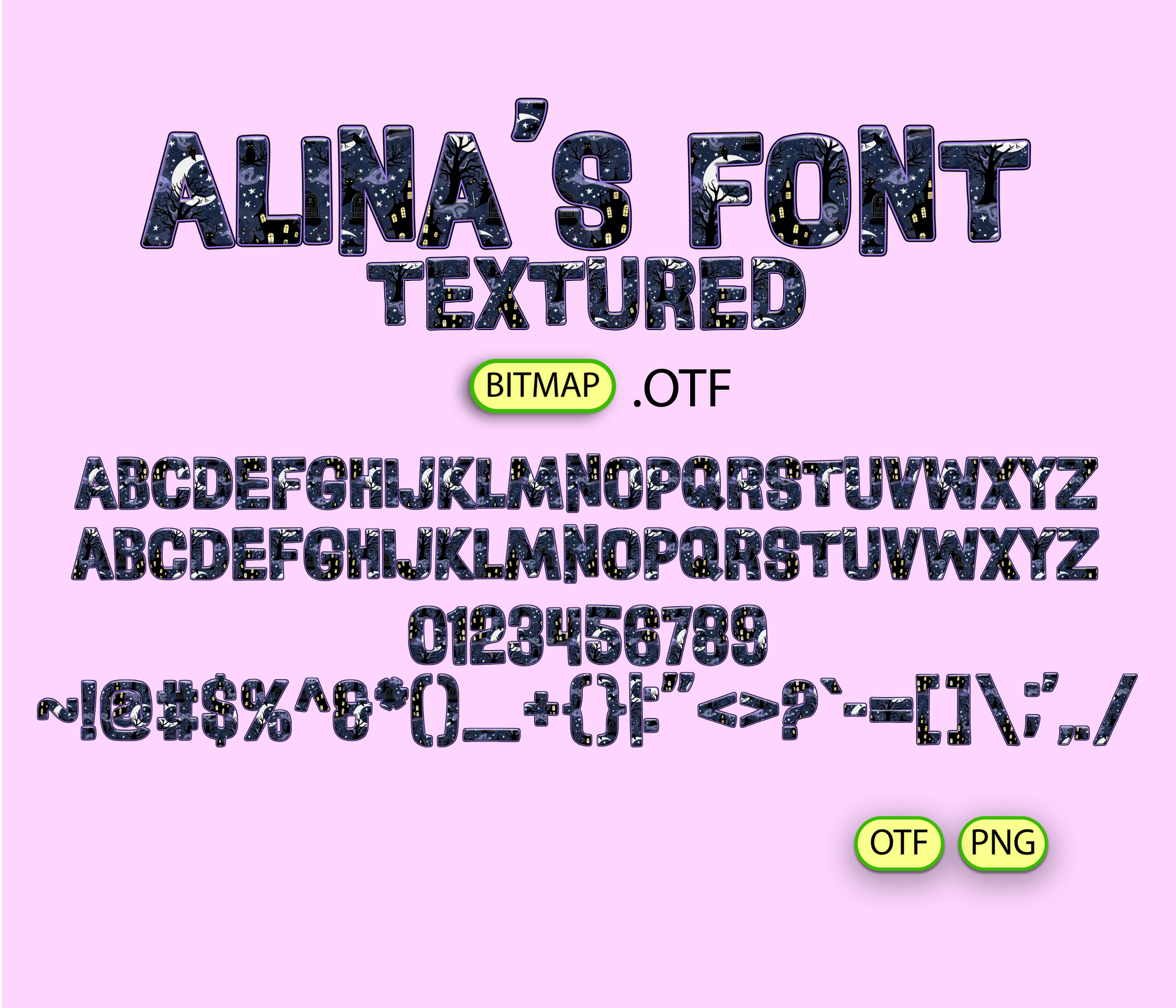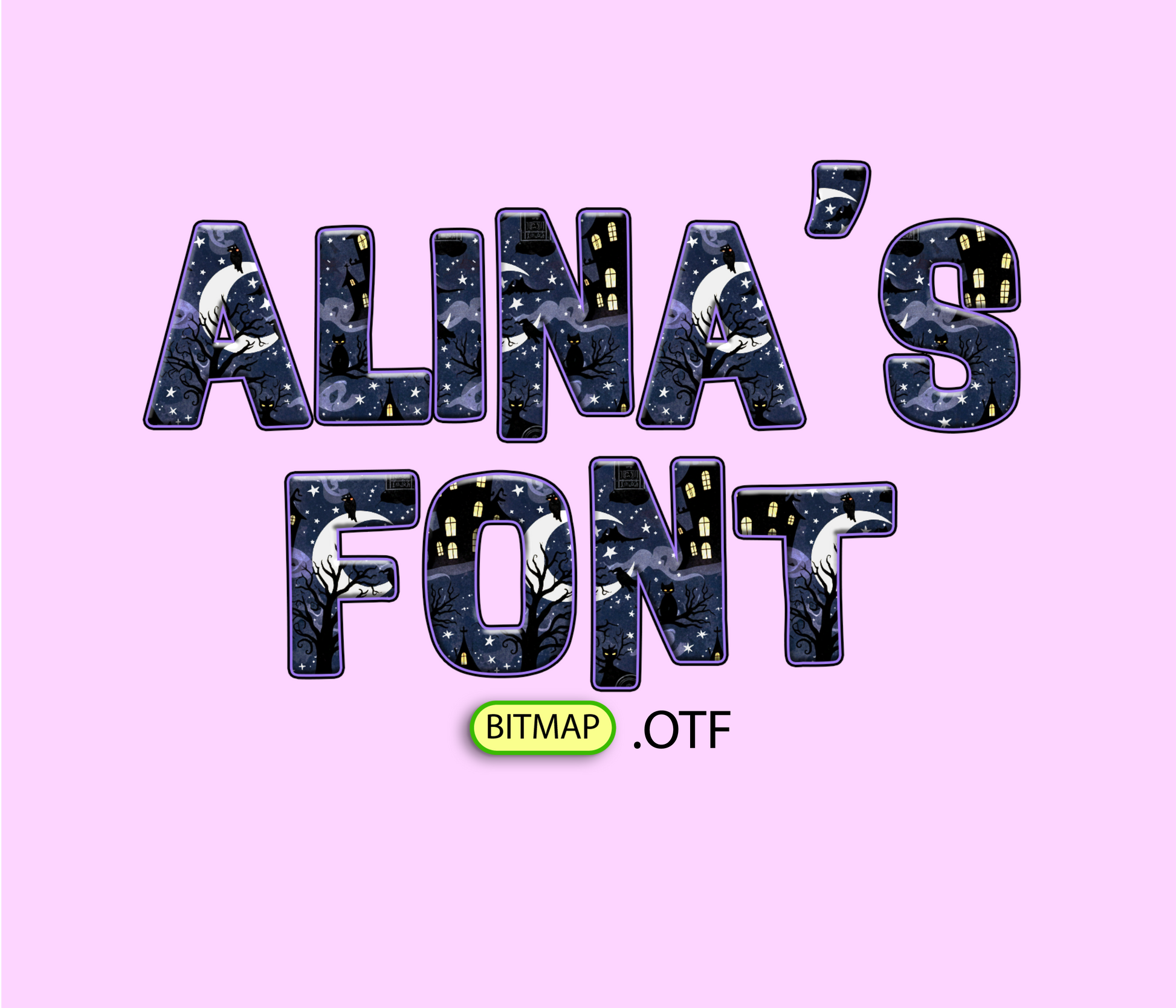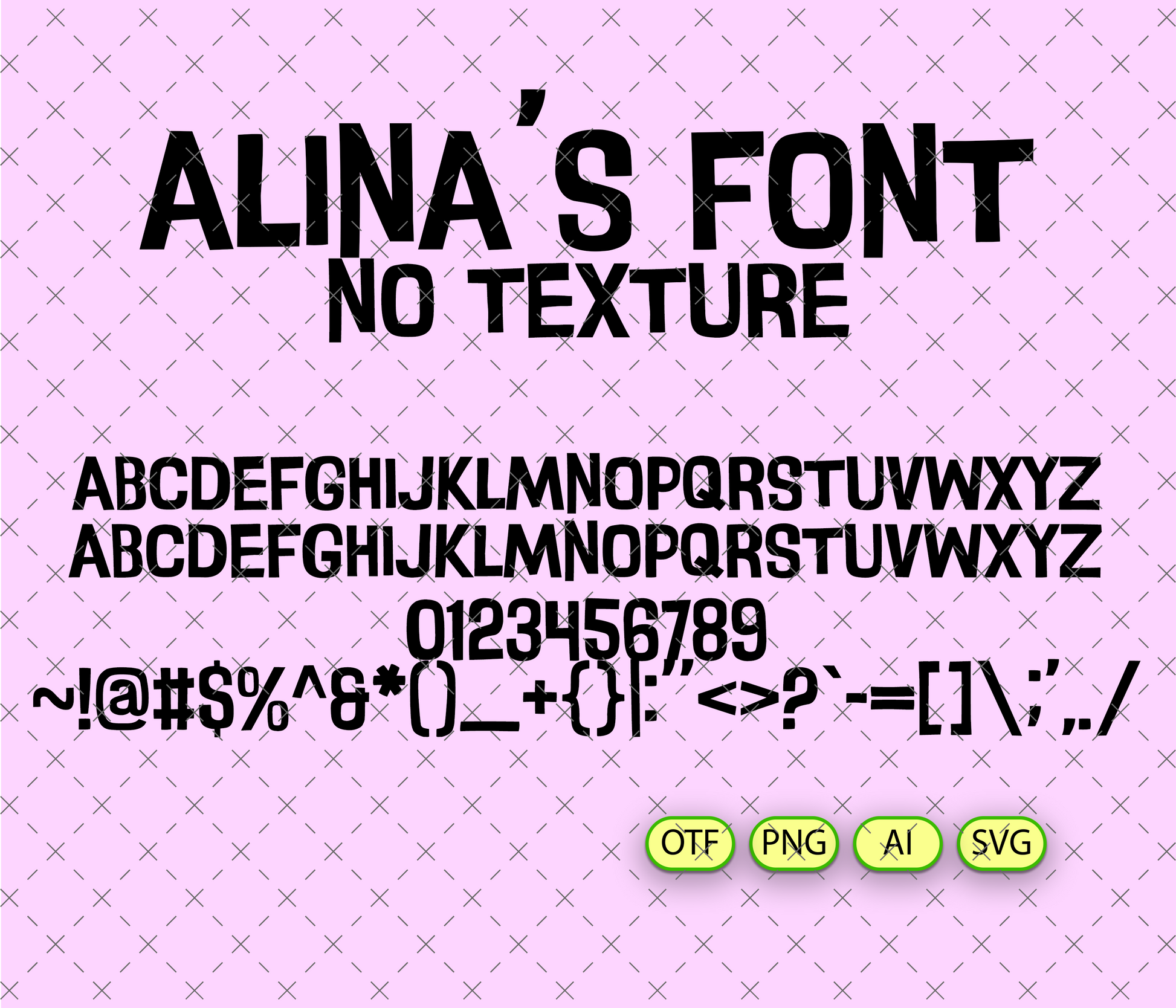
FREE Halloween Nightmare Pattern Font
Step into the terrifying world of spooky seasons with our Halloween Nightmare font, capturing the essence of haunted nights and spine-chilling frights. Perfect for horror fans, party planners, event organizers, and designers, this font brings the dark, eerie spirit of frightful celebrations to your projects. Create bone-chilling materials, merchandise, or digital content with the haunting energy of scary festivities.
Our Halloween Nightmare font features creepy, twisted lines and sinister characters reflecting the world of spooky celebrations. Ideal for:
- Event Promotions: Create terrifying invites, posters, and banners for haunted houses, costume parties, and October gatherings that capture the spirit of frightful nights
- Merchandise Design: Perfect for t-shirts, posters, and accessories that showcase the dark aesthetic of spooky seasons and scary celebrations
- Digital Media: Enhance websites, blogs, and social media with haunting headers and graphics that express the terror of October nights
- Horror Content: Add authentic flair to party decorations, spooky projects, and creative designs inspired by frightful festivities
- Personal Projects: Bring spine-tingling excitement to scrapbooking, DIY crafts, and home decor inspired by the world of scary celebrations
Our font pays tribute to the iconic world of spooky celebrations, empowering your designs with its dark and eerie spirit. Whether crafting promotional materials, designing merchandise, or adding a frightful touch to personal projects, this font communicates the bold essence of scary festivities. Ready to inject spine-chilling power into your creations? This font is your key to exciting, impactful design.